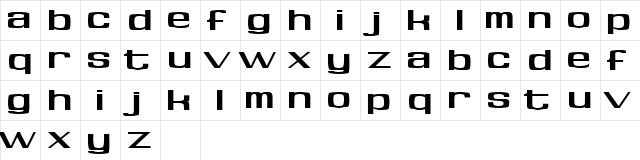
Soft Hits Regular
Design Context for Soft Hits Typeface
Soft Hits is a composed and adaptable typeface that performs quietly and consistently across a wide range of design contexts.